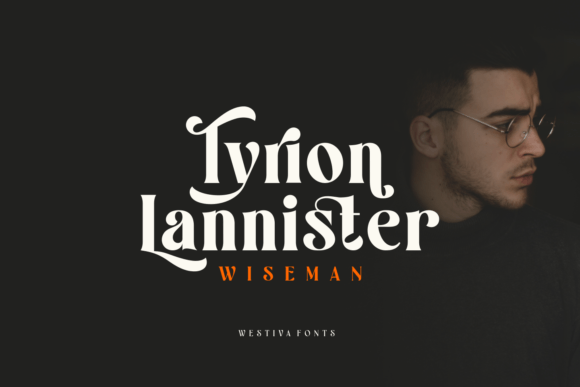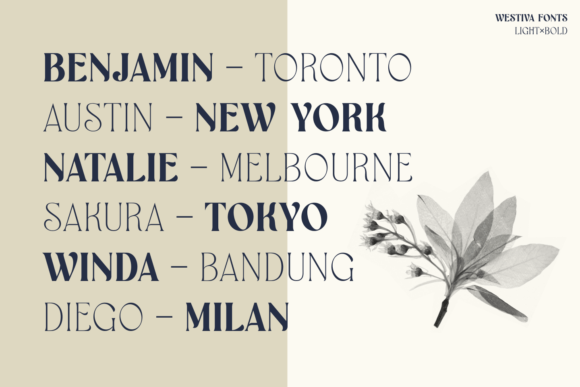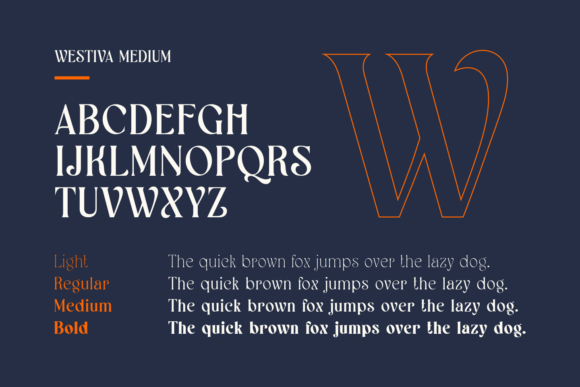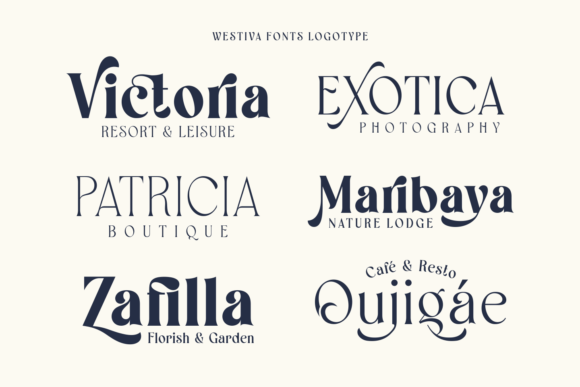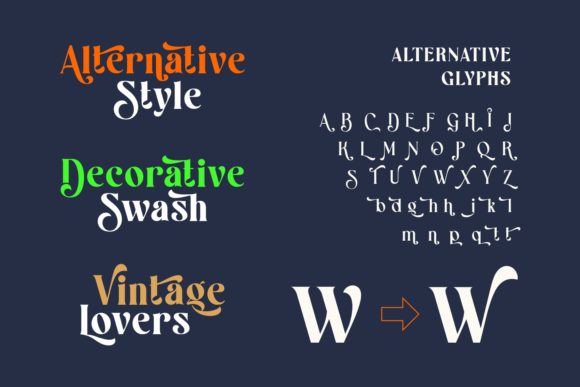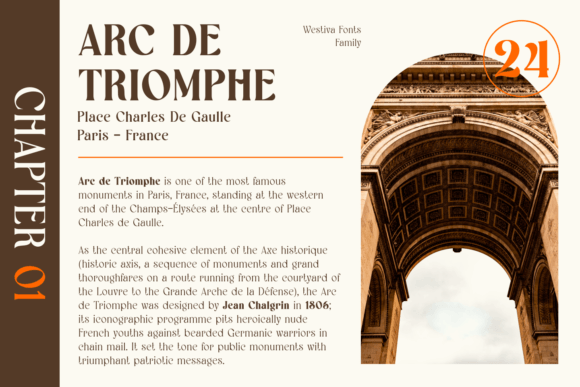
Westiva Font
Westiva is a serif font with an elegant and classy look. With its beautiful curves and stylish appearance, this font will help you create stunning designs.